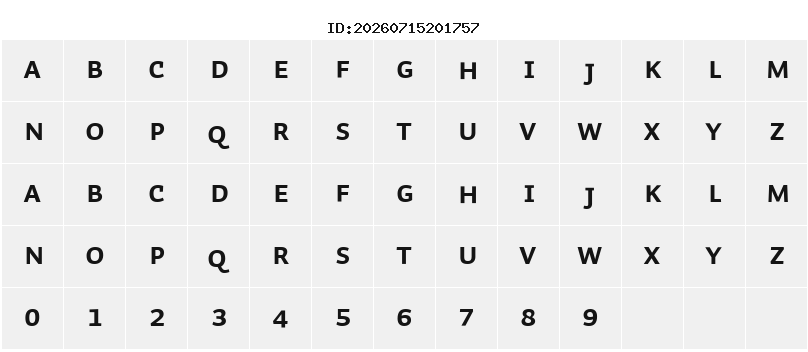
• Font Name: Auto 2 Lt SmCp
About Auto 2 Lt SmCp.ttf
Auto 2 Lt SmCp.ttf is a modern, elegant sans-serif font designed for ultimate readability and visual harmony. Perfect for branding, headlines, web design, and print materials.